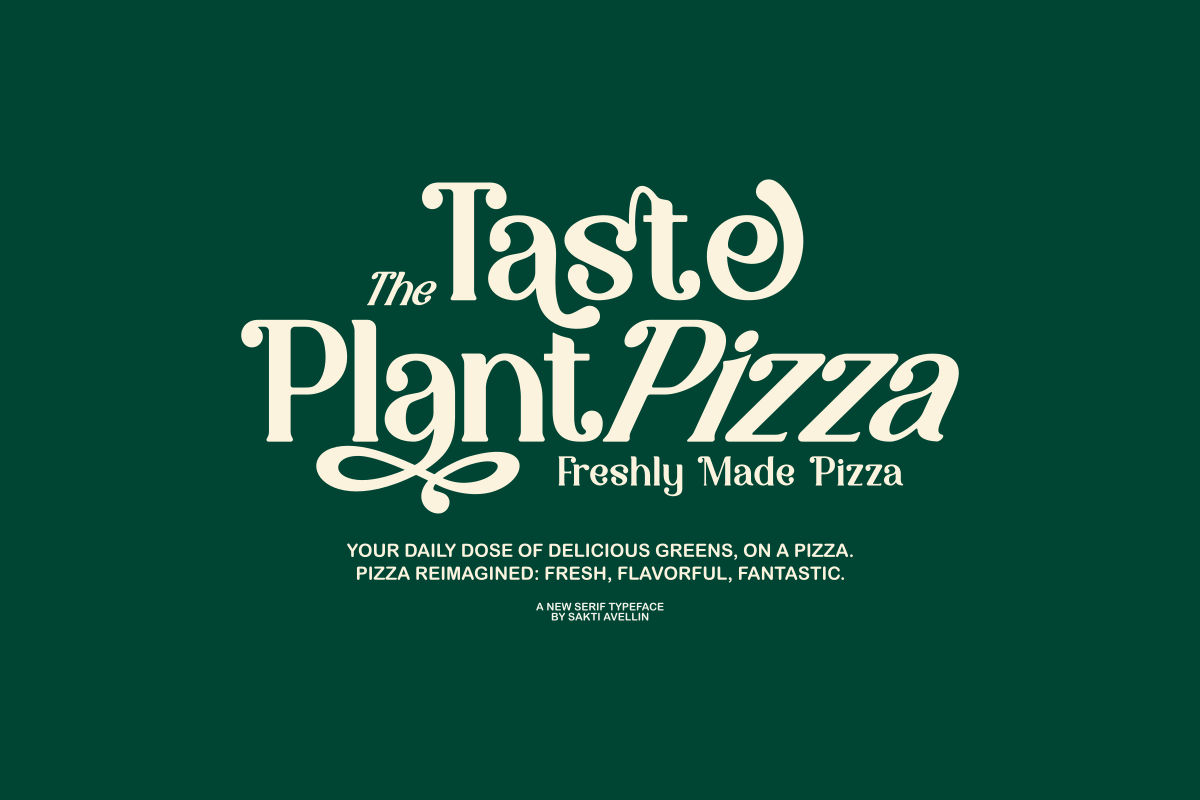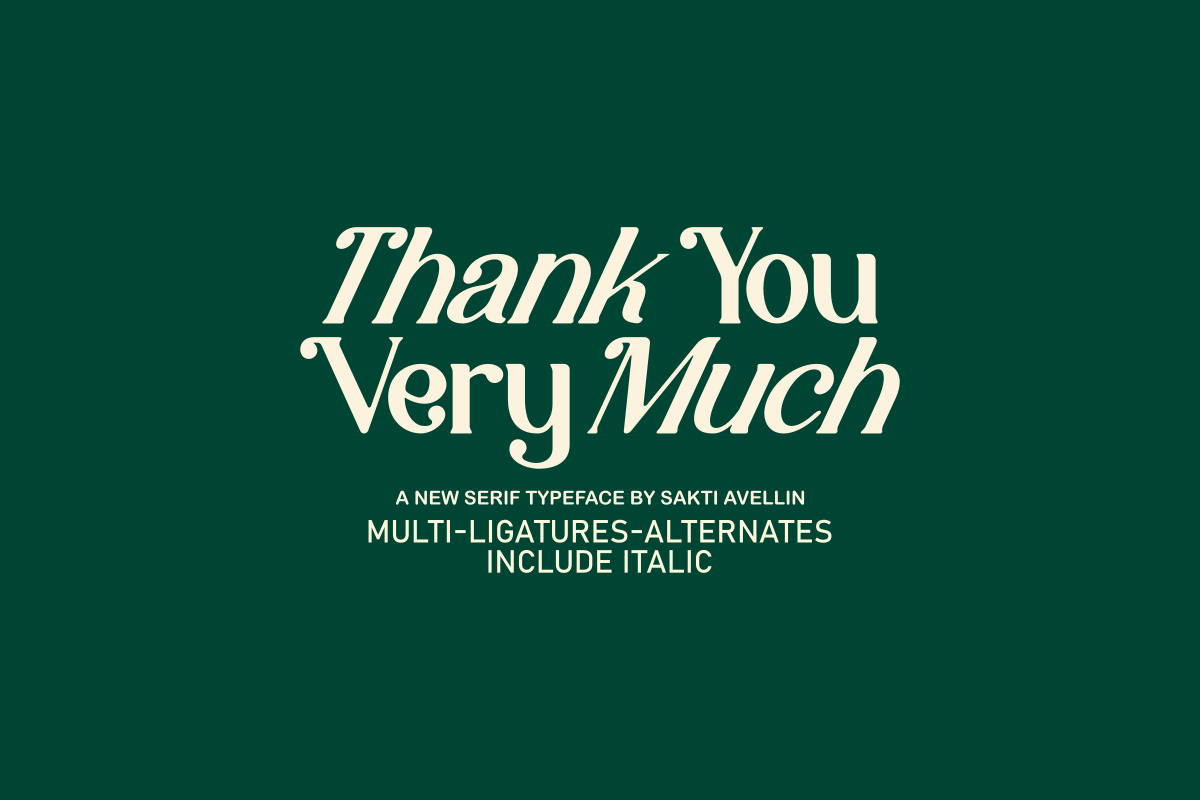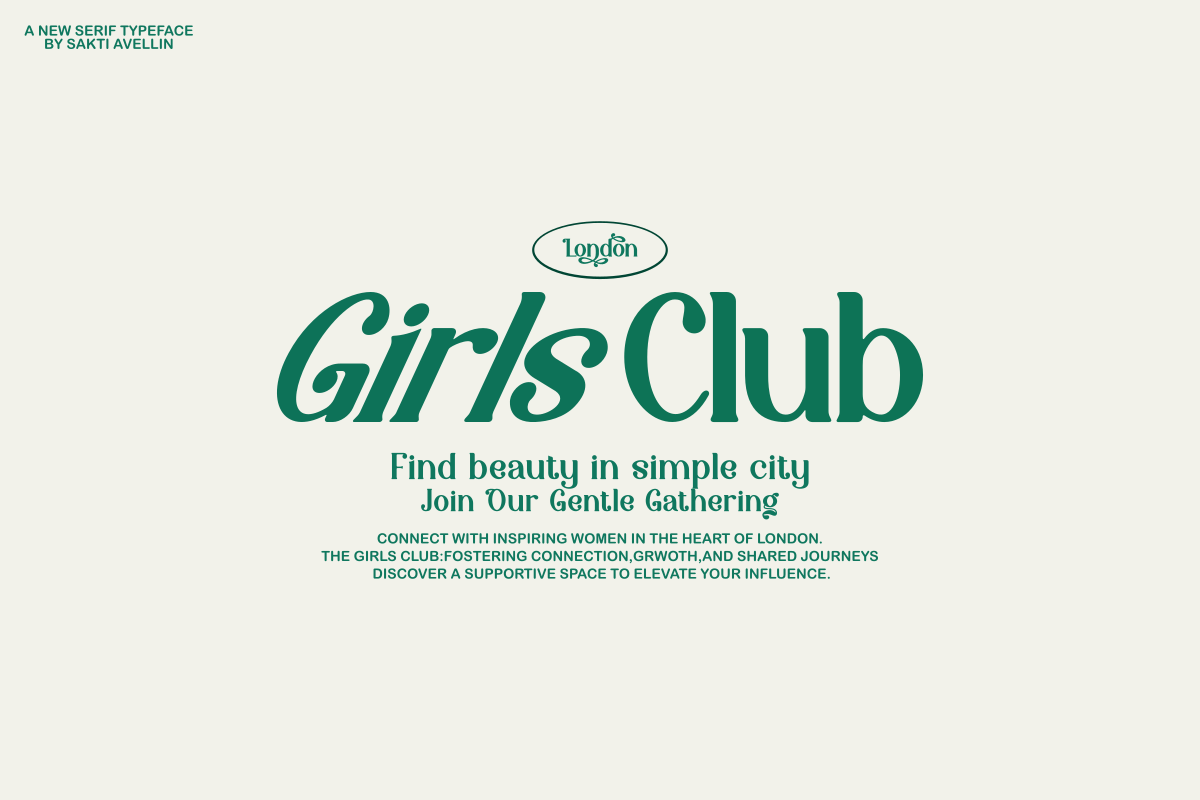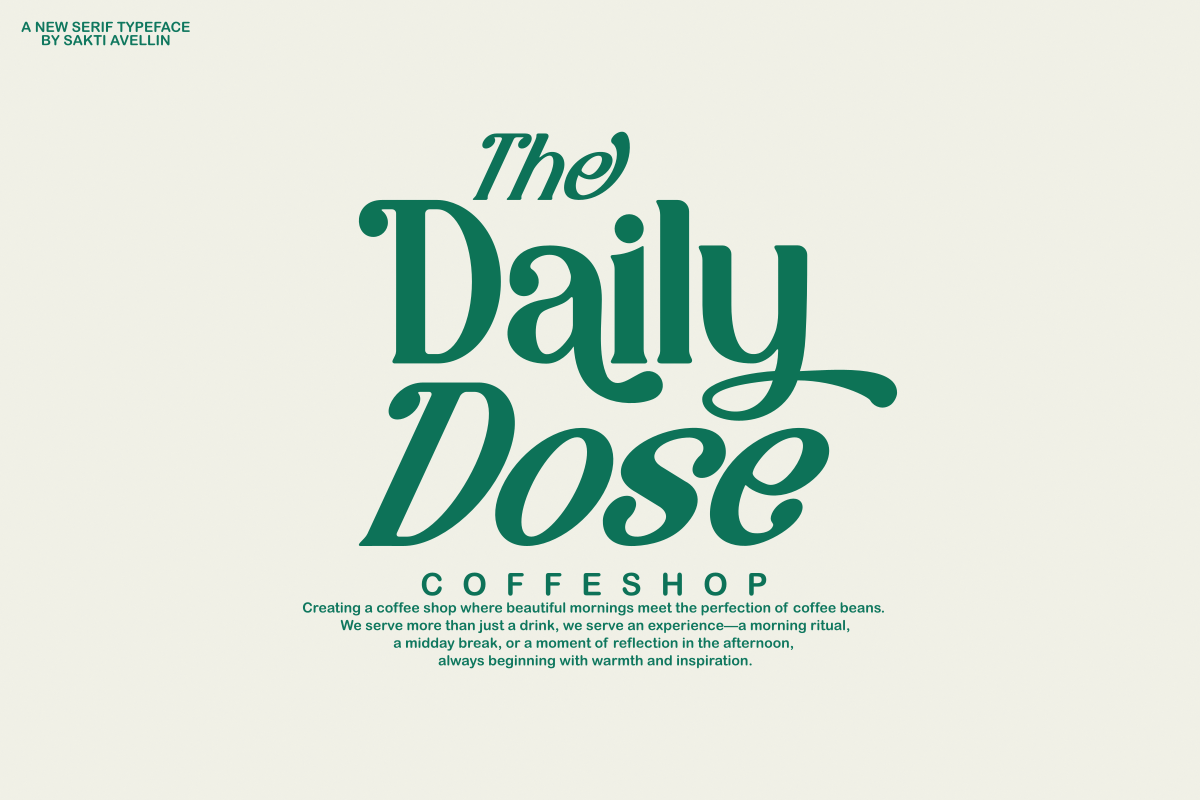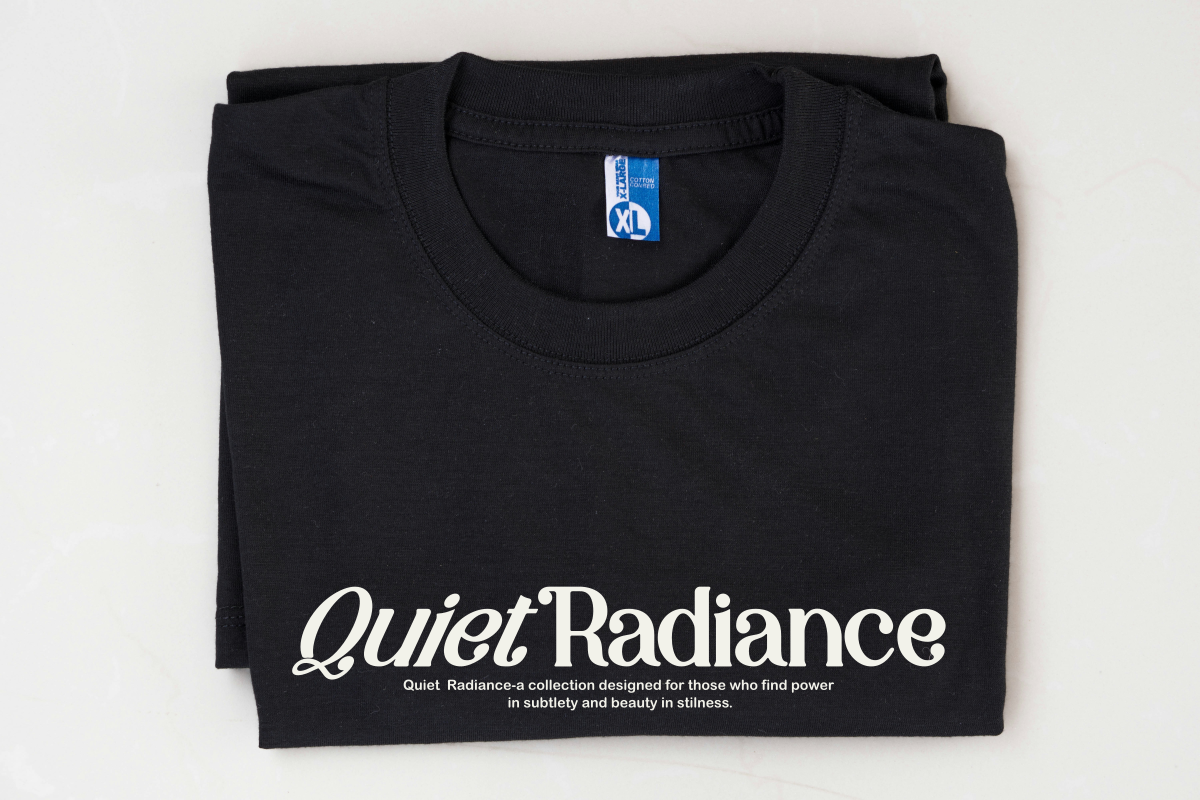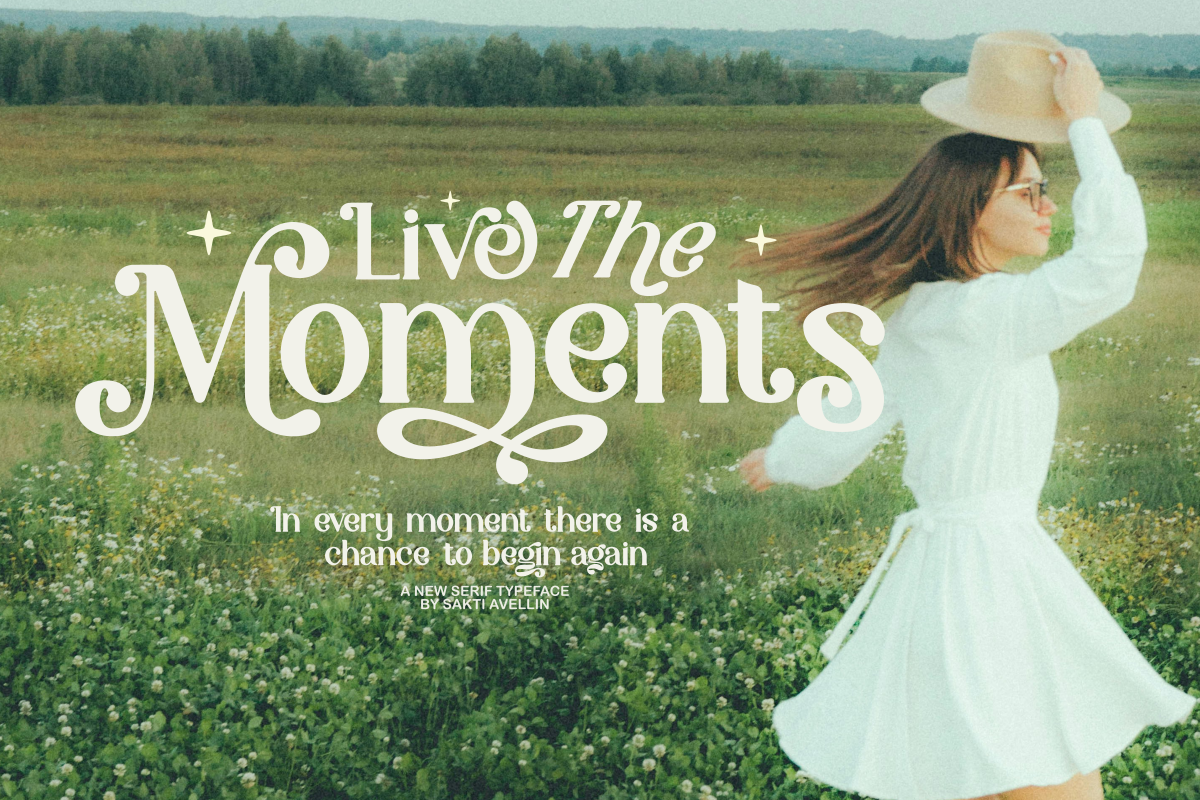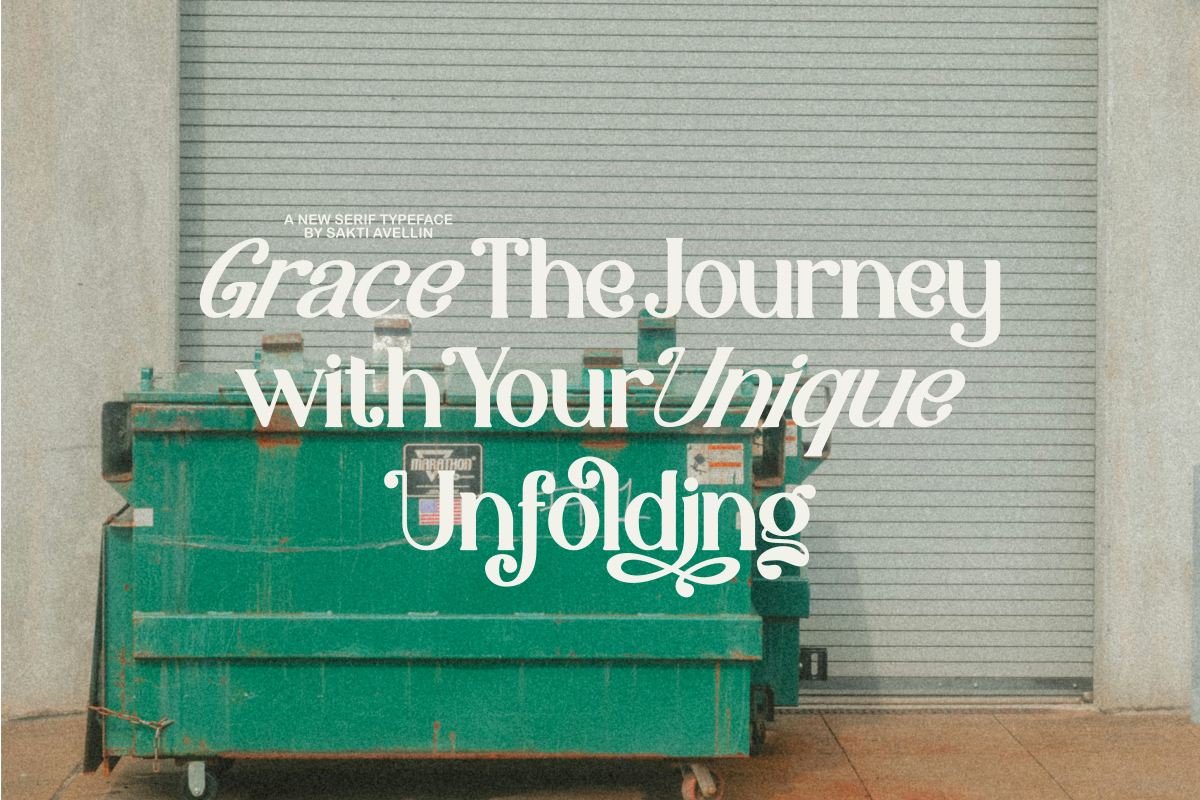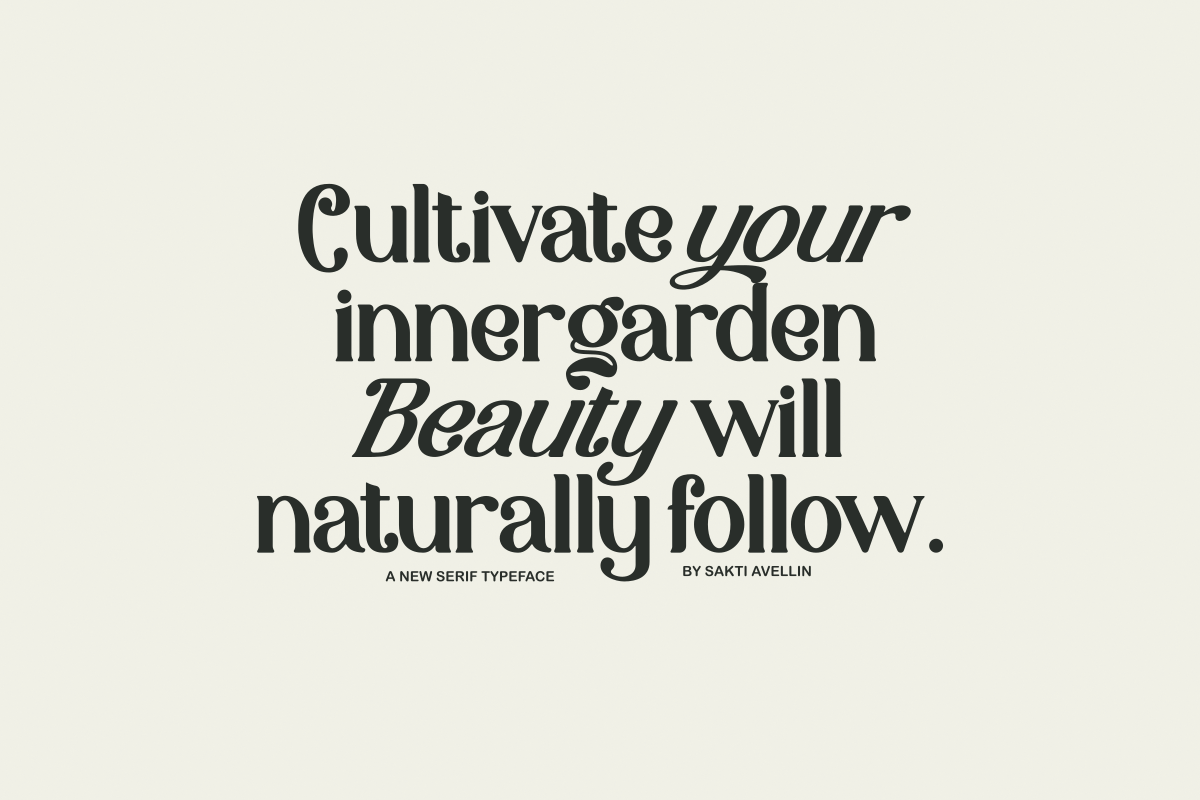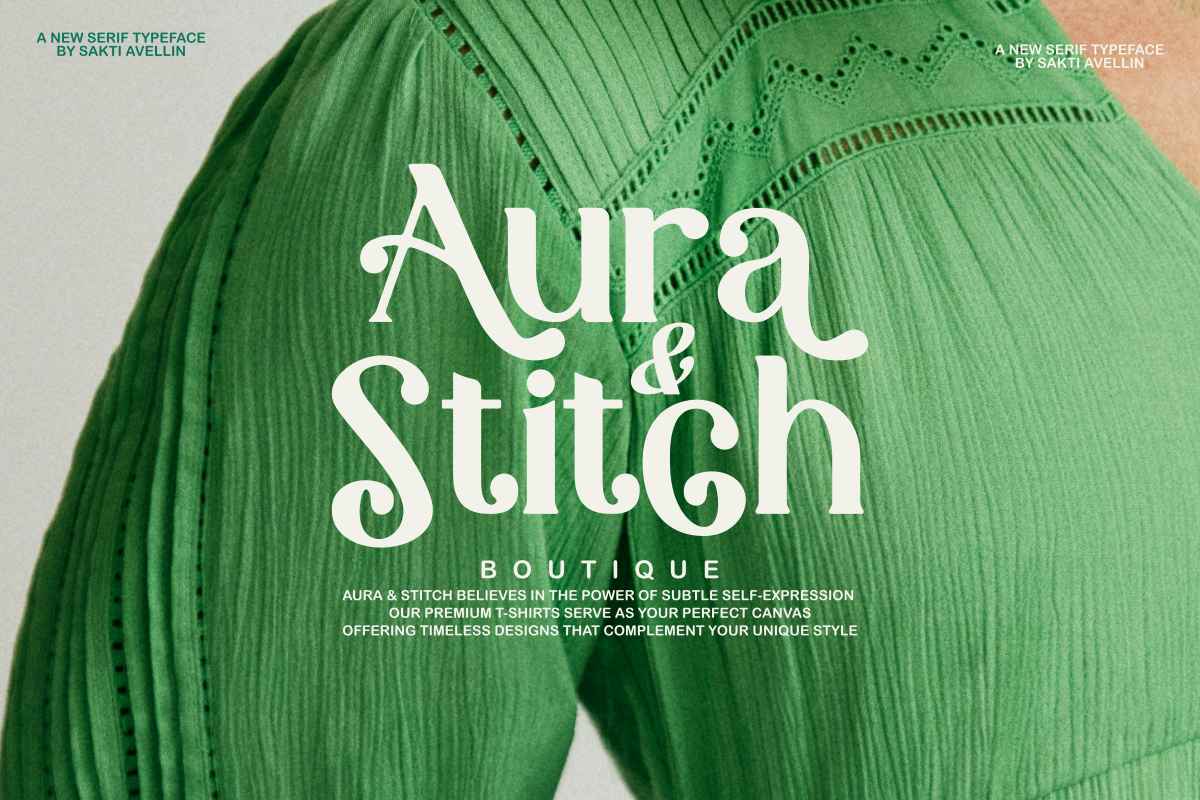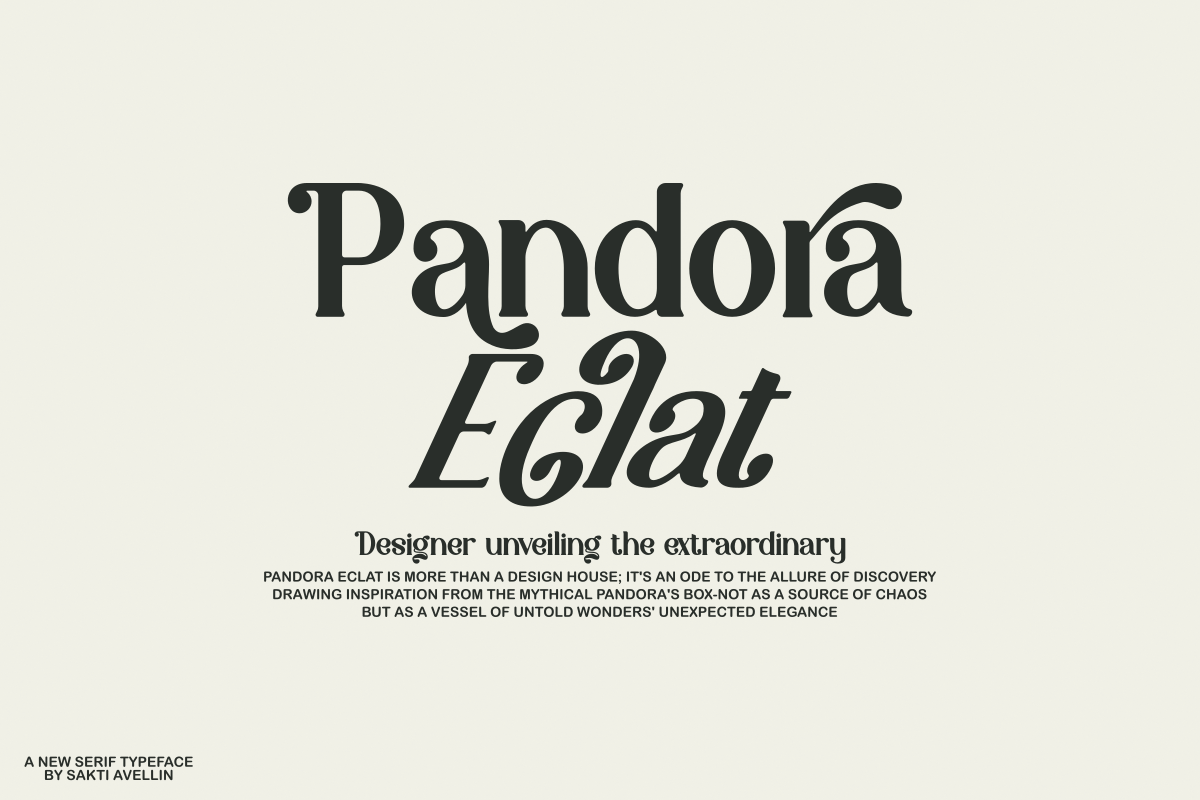
Magic Avenue - A New Serif Typeface
Magic Avenue is an elegant, mesmerizing new serif typeface that flawlessly combines modern readability with a playful, decorative flow. This versatile font includes multi-ligatures and alternates, along with an italic style, making it essential for high-end feminine logos, luxurious wedding invitations, elegant branding, magazine layouts, and fashionable social media graphics. Its distinctive, flowing style ensures it is a powerful display typeface for headlines and product packaging, appealing to a trendy audience seeking sophistication with a touch of magic. Bring sophisticated, stylish flair to your creative work with this truly enchanting decorative serif font!